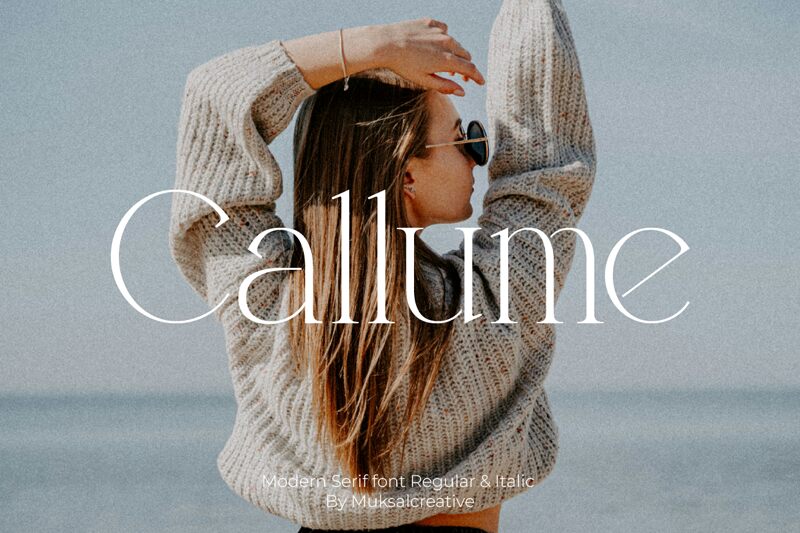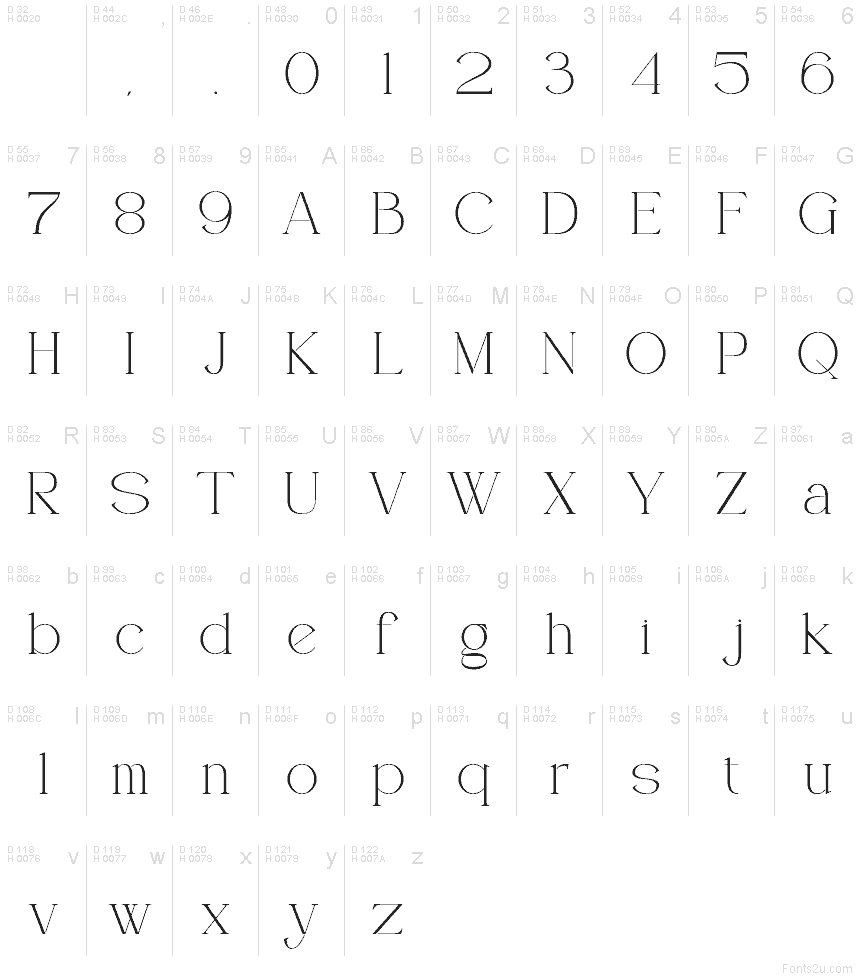
Callume font by Muksal Creative is a free modern serif typeface. Its razor-thin hairlines taper into velvety curves, giving each word a poised, couture finish while keeping plenty of air between strokes. Subtle flares and sculpted joins add a soft glow rather than a shout, so headings feel luxe and effortless instead of loud.
Using Callume, elegant branding and beauty packaging come to life; it also shines on magazine mastheads, wedding stationery, boutique logos, fashion lookbooks, and website hero graphics. Set it large to let the delicate strokes breathe, and try pairing this free font with a crisp geometric sans for body copy to keep the overall tone fresh and polished.